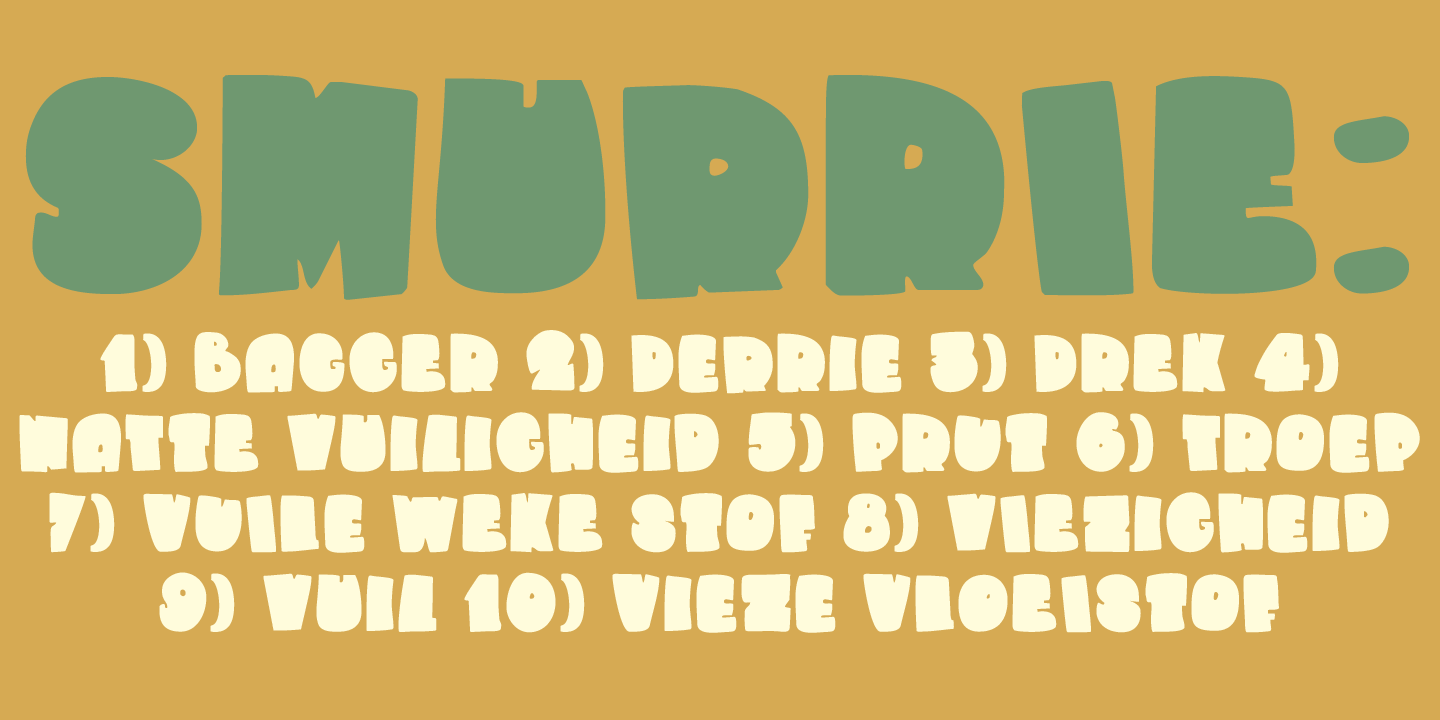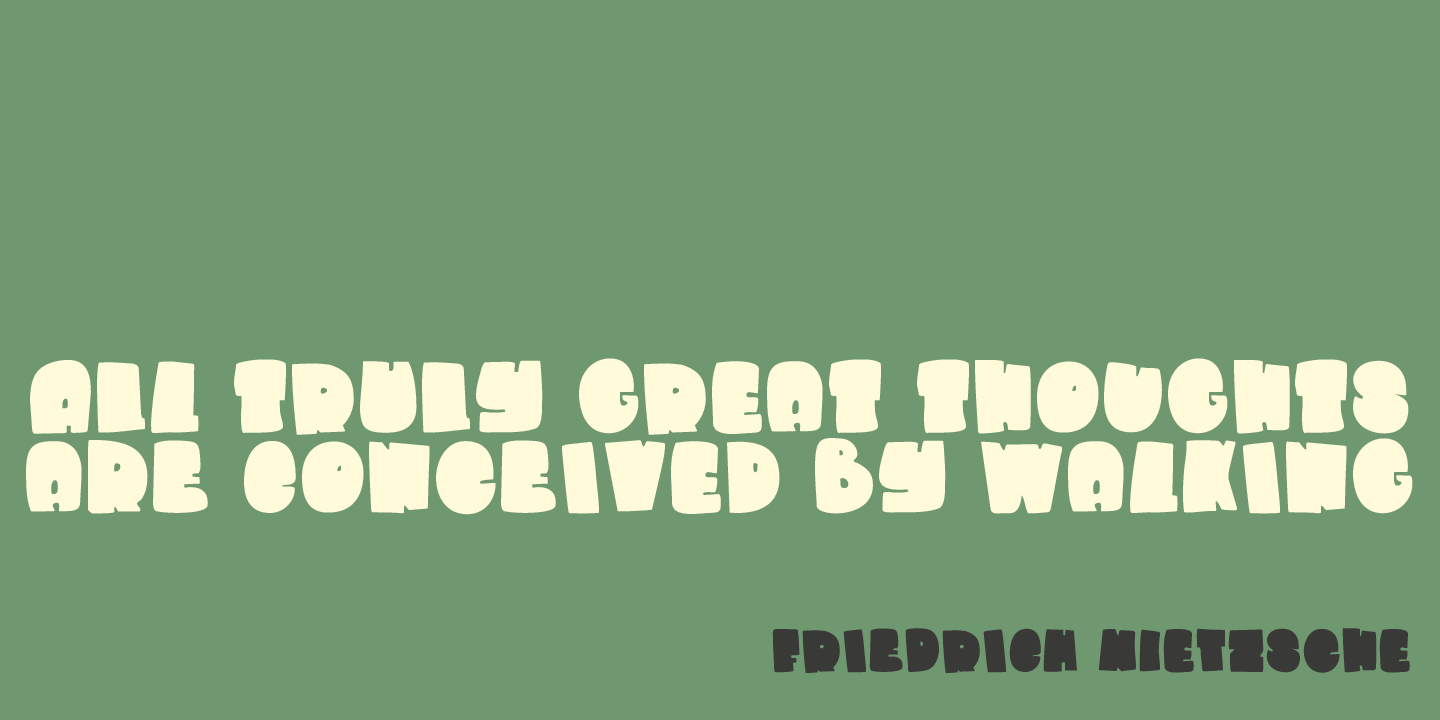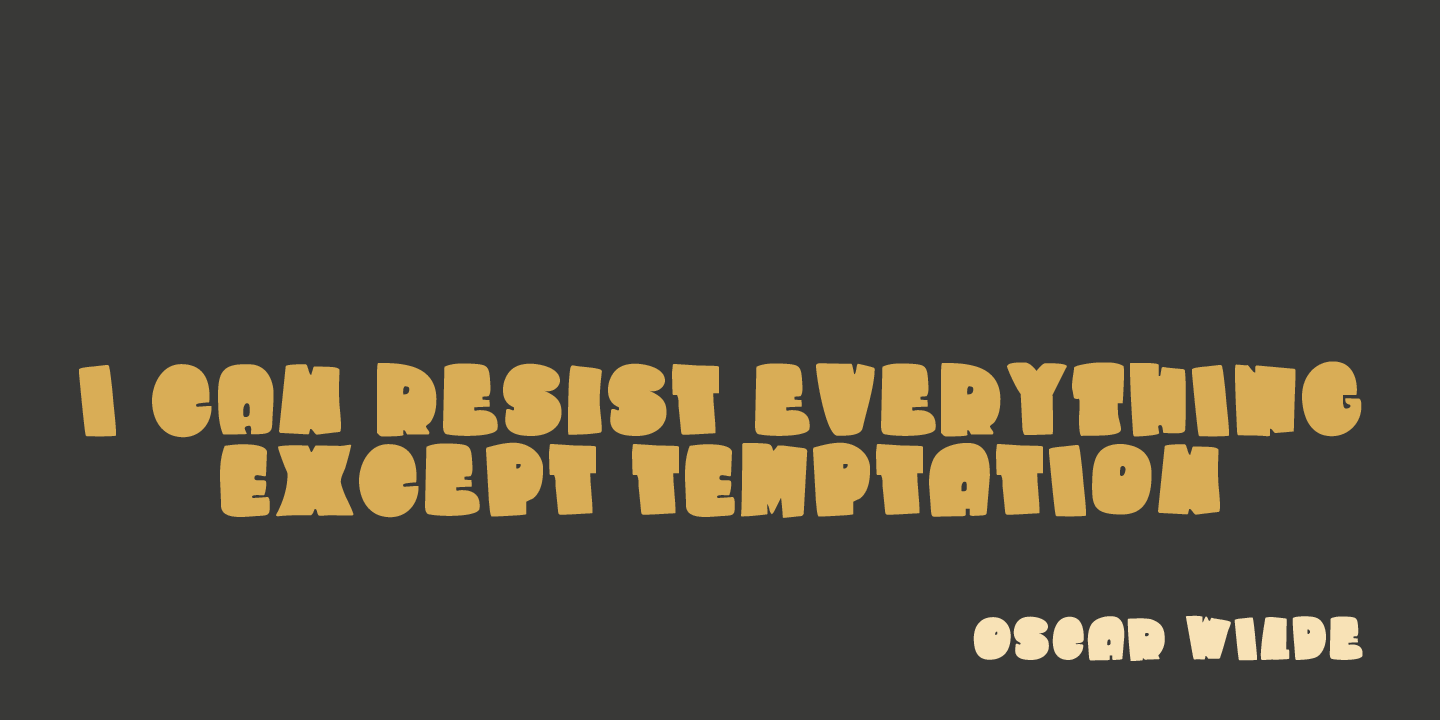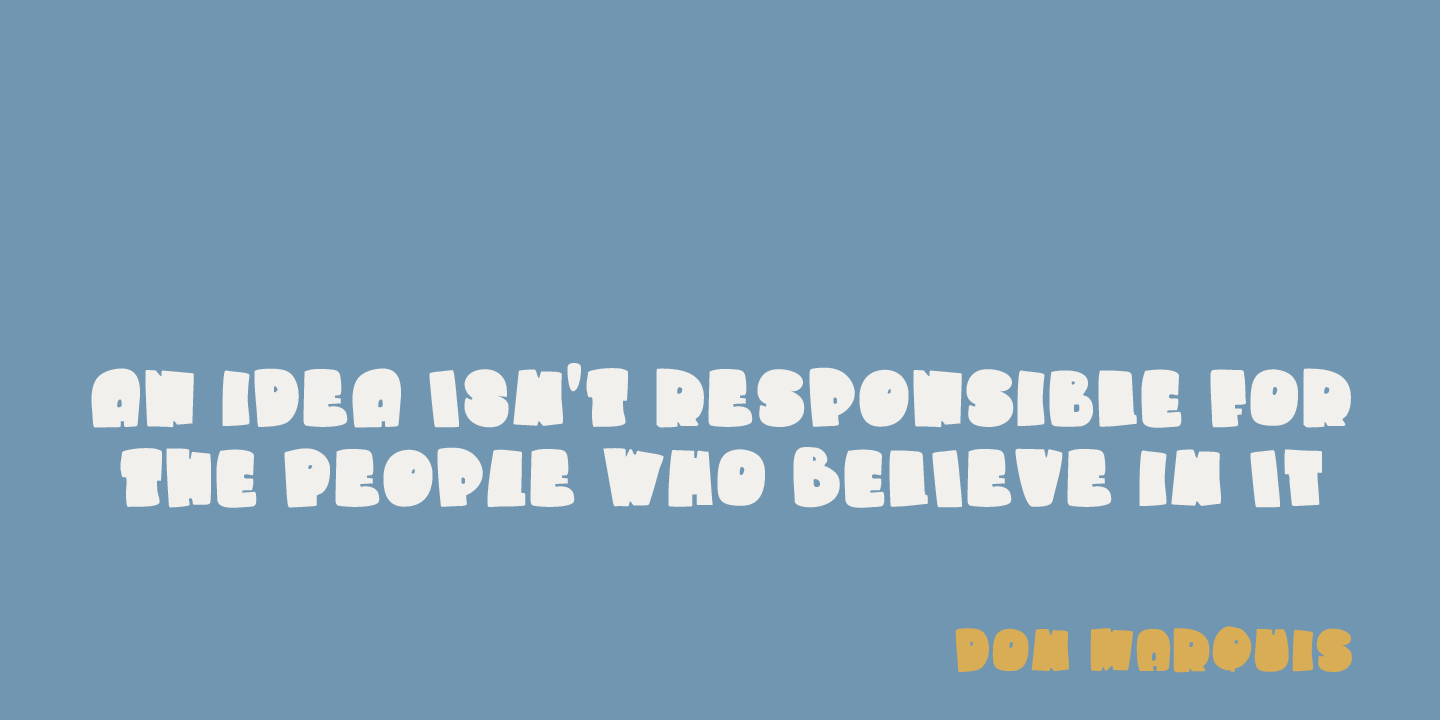
Smurrie
Smurrie means 'sludge? in Dutch. It is not an exact translation, but as good as I could find. The name refers to the rounded, blob-like shape of the glyphs. I think this font would look very good on posters, book covers and T-shirts. Smurrie is an all caps font, but upper and lower case differ and can be used together. Smurrie oozes with charm, fun and happiness and comes with a whole bunch of diacritics.